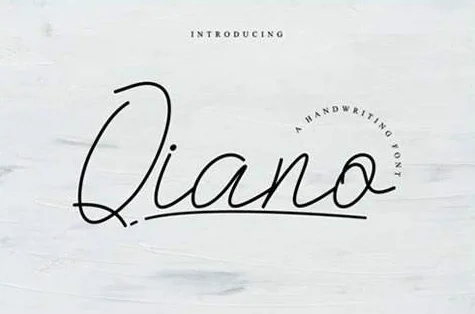
Qianno Font
Qianno Font is perfect for a wide range of design projects including elegant branding, sophisticated logos, high-end fashion labels, luxury product packaging, premium editorial layouts, refined wedding invitations, upscale restaurant menus, and polished corporate communications. Its graceful character makes it an exceptional choice for projects that demand refined aesthetics and distinguished visual presence.
What makes Qianno Font exciting is its exquisite balance between contemporary minimalism and timeless elegance that creates sophisticated visual harmony. The font features beautifully proportioned letterforms with subtle refinements and graceful curves that deliver understated luxury without unnecessary ornamentation. Its distinctive personality conveys professionalism, taste, and attention to detail, making it ideal for brands that want to project quality, refinement, and enduring style through their typography.
Qianno Font comes in multiple font families including Thin, Light, Regular, Medium, Bold, and corresponding Italic variations. These comprehensive weight options allow designers to establish elegant typographic hierarchies and maintain visual sophistication across diverse applications, from delicate accent text to commanding yet refined display headlines.
Whether you're creating luxury brand identities, designing premium publications, or developing upscale marketing materials, Qianno Font Free Download offers the perfect combination of modern elegance and timeless appeal. The font's refined character works beautifully for both text and display applications, ensuring your designs communicate sophistication, quality, and professional excellence with every carefully crafted letterform across all platforms.